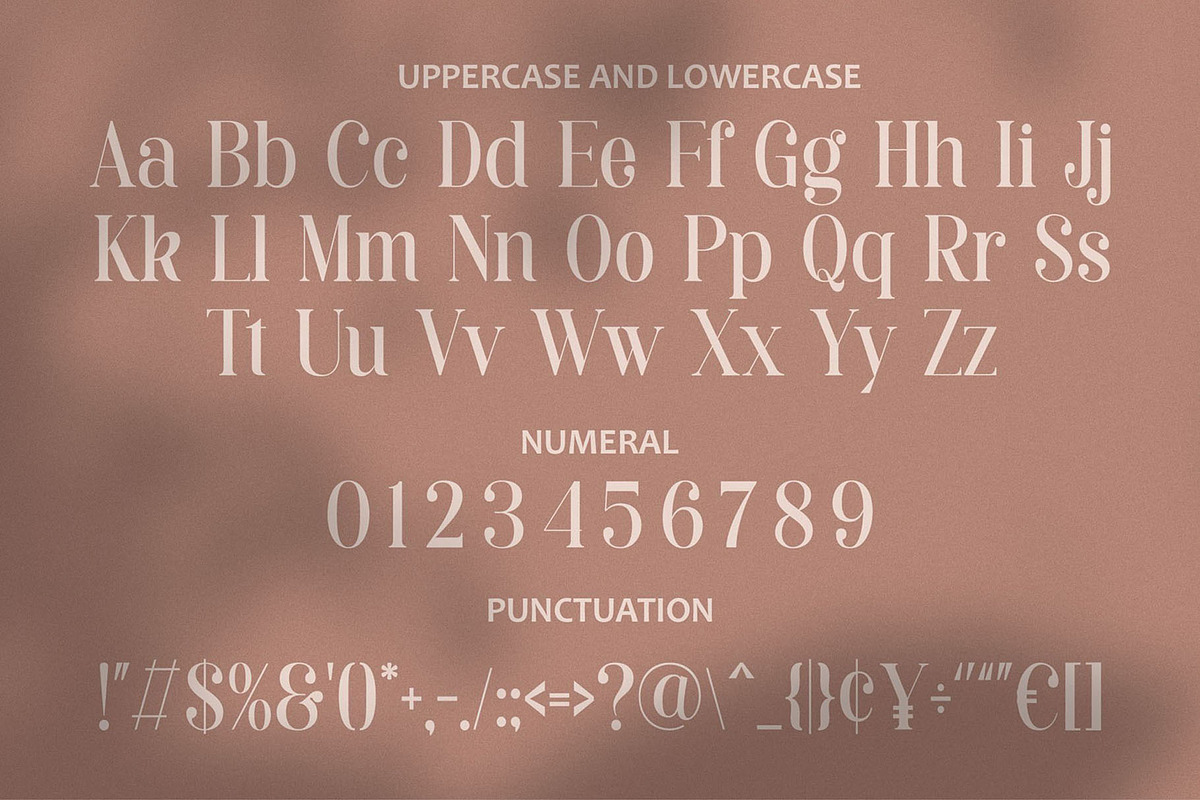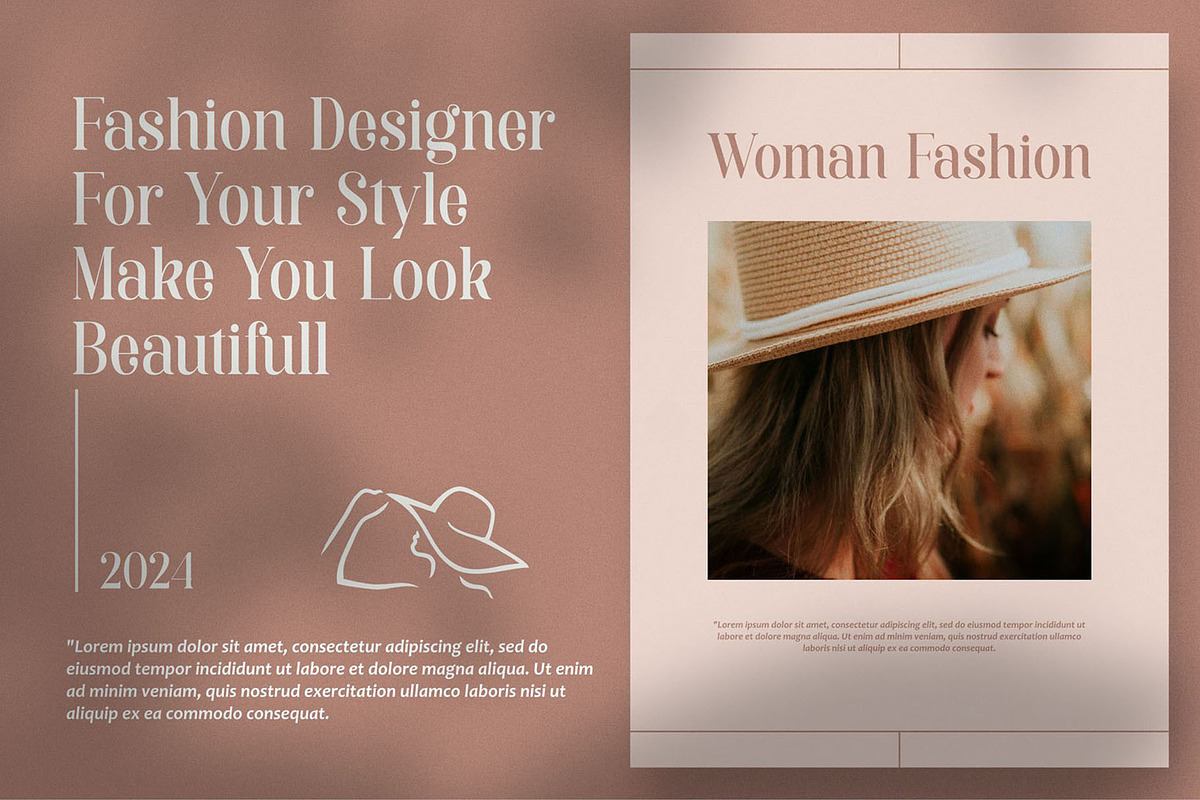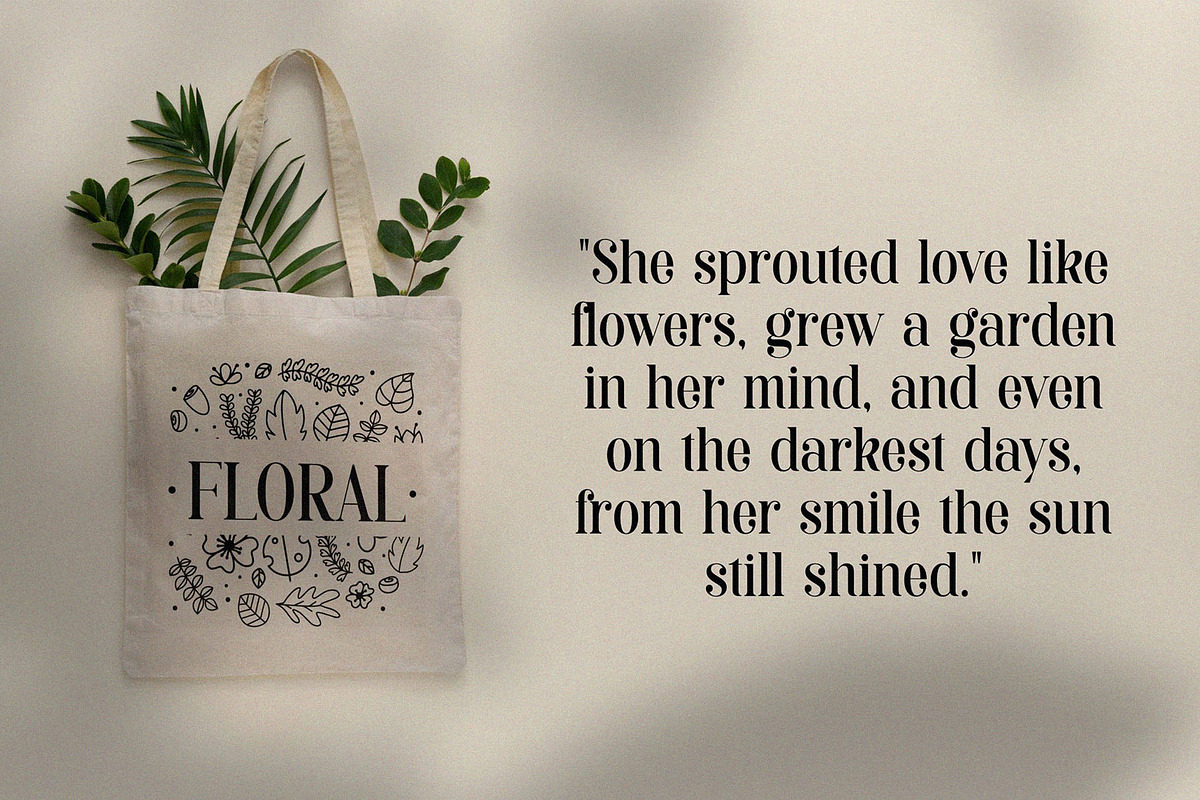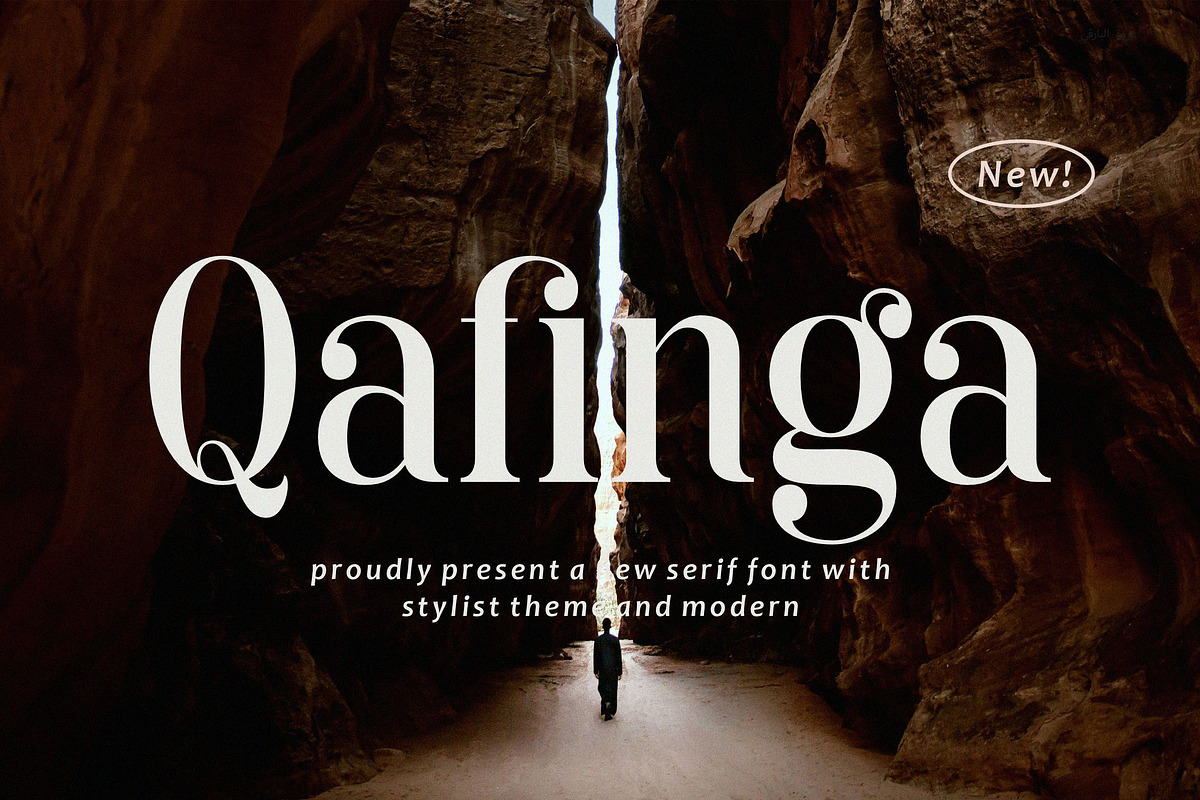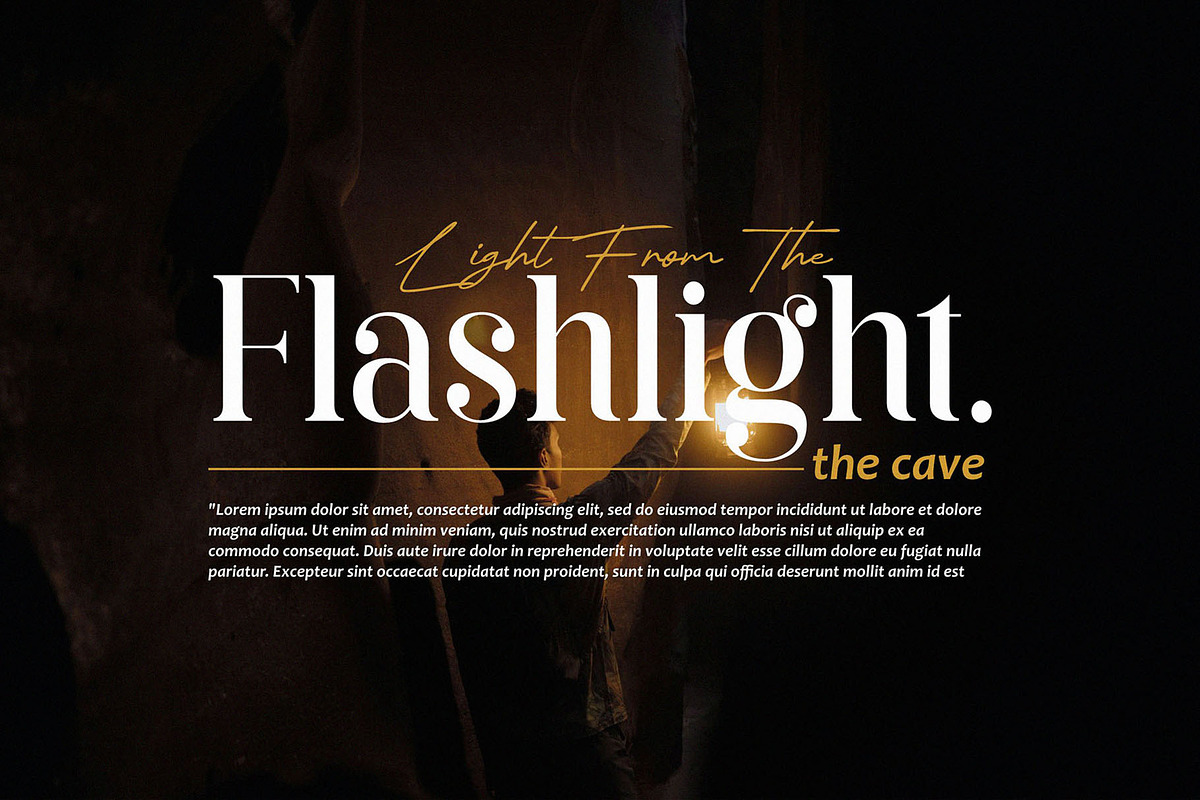
Qafinga - Classy & Stylish Serif
Introducing our new Qafinga, modern serif font with elegant style this is perfect for branding, logos, invitation, magazines, product packaging and more.